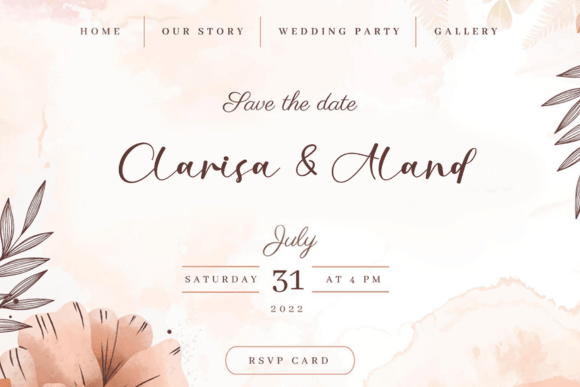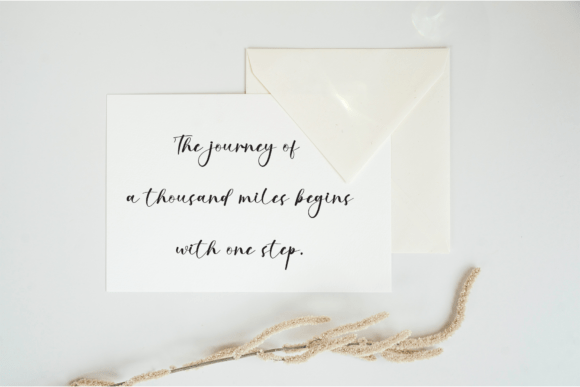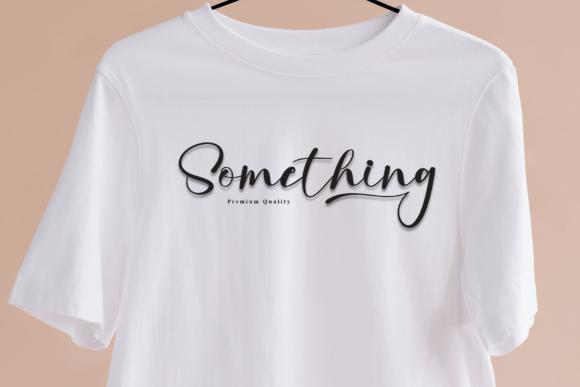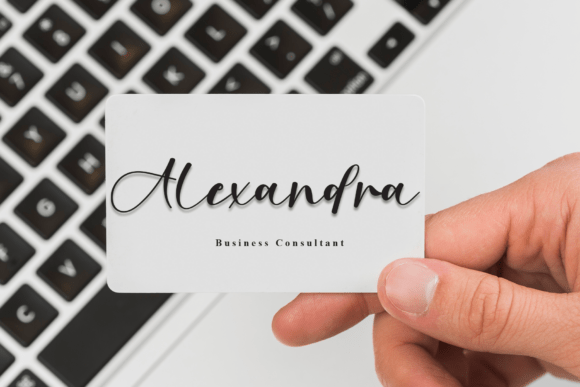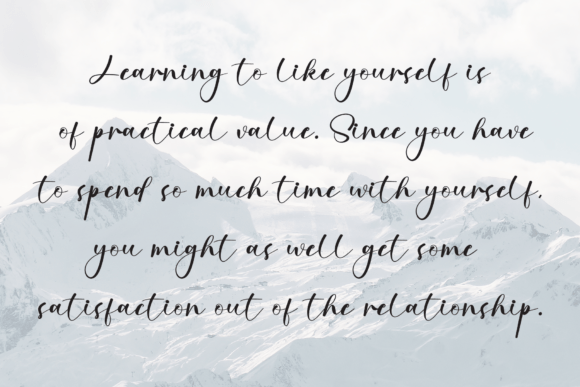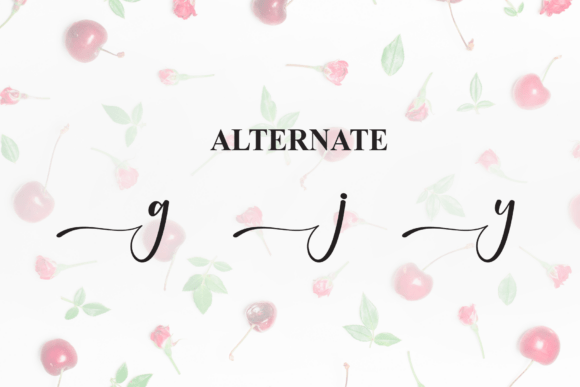
Introducing Cherry Font: The Perfect Blend of Class and Modernity
Are you on the hunt for a font that exudes elegance, sophistication, and a touch of modernity? Look no further than Cherry Font, a beautiful handwritten typeface that is sure to capture your heart. Designed with meticulous attention to detail, Cherry Font is a masterclass in blending traditional calligraphic influences with contemporary flair.
The Story Behind Cherry Font
Cherry Font is more than just a pretty face – it’s a carefully crafted tool designed to help you elevate your projects to new heights. Its creator had a vision of producing a font that would not only be aesthetically pleasing but also versatile and user-friendly. The result is a typeface that feels both luxurious and approachable, making it perfect for a wide range of applications.
What Makes Cherry Font So Special?
So, what sets Cherry Font apart from other fonts on the market? Here are just a few of its standout features:
- Exquisite Handwritten Style: Cherry Font boasts a beautiful, handwritten aesthetic that adds a personal touch to any project.
- Classy Calligraphic Influences: The font’s calligraphic roots give it a sense of sophistication and elegance, making it perfect for high-end branding and design projects.
- Contemporary and Fresh: Despite its classic influences, Cherry Font feels modern and fresh, ensuring it will appeal to designers looking for a font that’s both timeless and on-trend.
- Versatility: Whether you’re working on a logo, invitation, or social media graphic, Cherry Font is the perfect choice.
Why Designers and Crafters Love Cherry Font
Cherry Font has quickly become a favorite among designers and crafters, and it’s easy to see why. Here are just a few reasons why:
- Ease of Use: Cherry Font is incredibly easy to use, even for those who are new to design. Its clean lines and intuitive letterforms make it simple to pair with other fonts or use on its own.
- Emotional Connection: The font’s handwritten style creates an emotional connection with readers, making it perfect for projects where you want to convey warmth and personality.
- Customization Options: With Cherry Font, you can easily customize the font to suit your project’s needs, from adjusting the font size to experimenting with different colors and textures.
Using Cherry Font in Your Projects
So, how can you use Cherry Font in your projects? The possibilities are endless! Here are a few ideas to get you started:
- Branding and Logos: Cherry Font is perfect for creating elegant, high-end logos and branding materials.
- Wedding and Event Invitations: The font’s sophisticated style makes it ideal for wedding invitations, save-the-dates, and other event materials.
- Social Media Graphics: Add a touch of personality to your social media graphics with Cherry Font.
- Packaging and Product Design: Use Cherry Font to create eye-catching packaging and product designs that stand out on store shelves.
In conclusion, Cherry Font is a truly exceptional typeface that deserves a spot in every designer’s toolkit. Its unique blend of classic calligraphic influences and modern freshness makes it perfect for a wide range of projects. Whether you’re a seasoned designer or just starting out, Cherry Font is sure to become a favorite. So why wait? Fall in love with Cherry Font today and bring your projects to the highest levels!